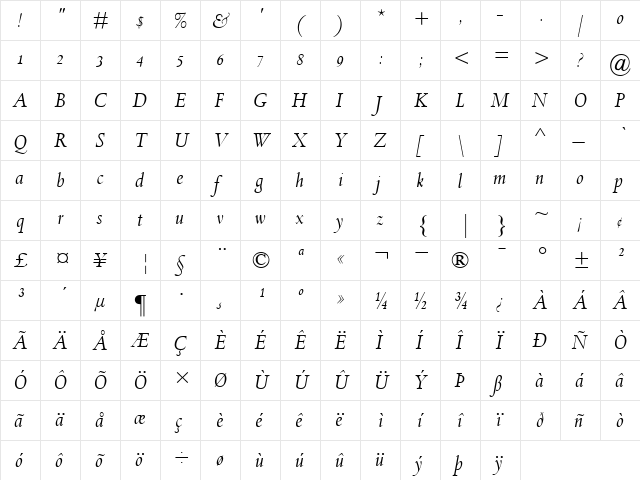
SpectrumMTOldstyleFigures RomanItalic
Design Context for SpectrumMTOldstyleFigures Typeface
SpectrumMTOldstyleFigures brings classic typographic sensibility to the table — its serifs and measured letterforms reflect centuries of print heritage. The slanted form adds forward momentum and visual energy.